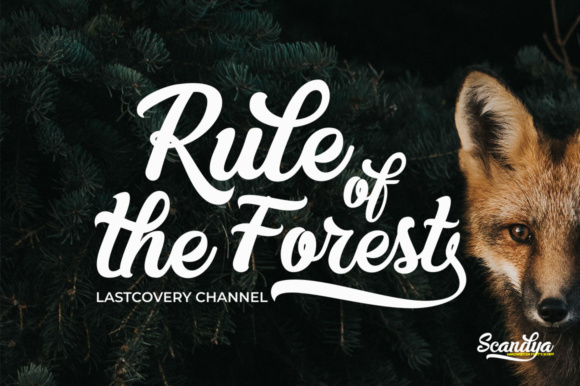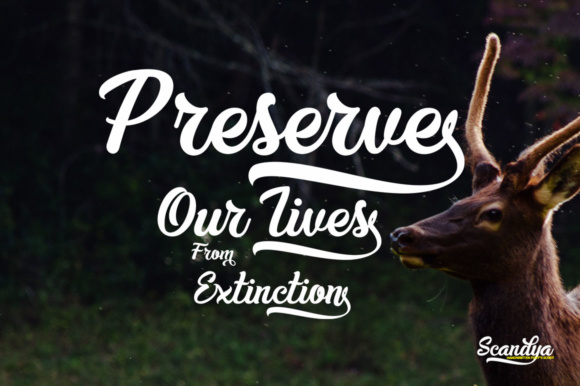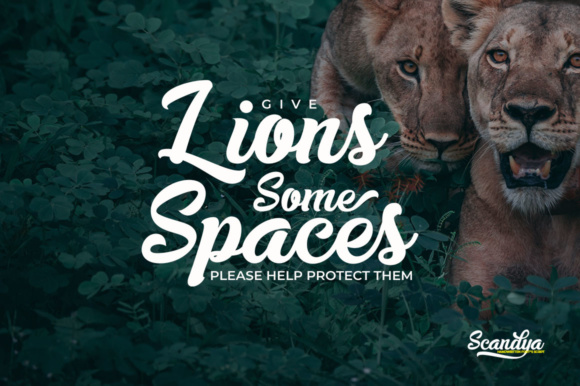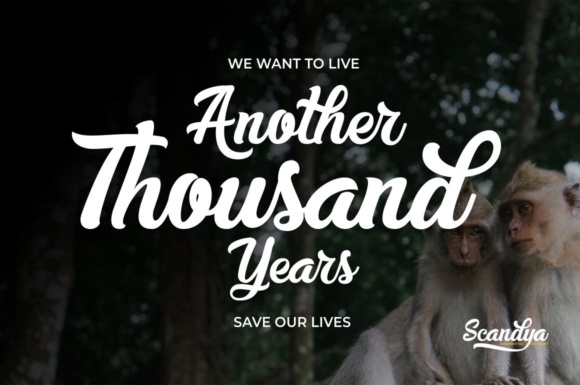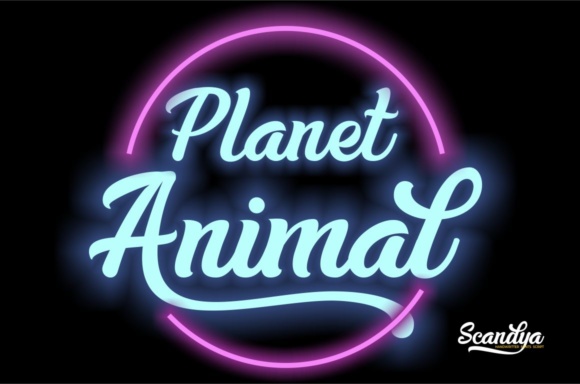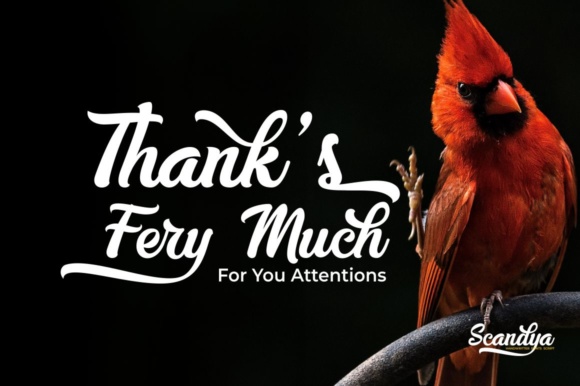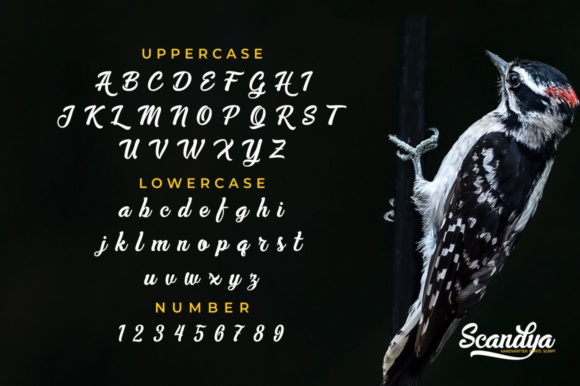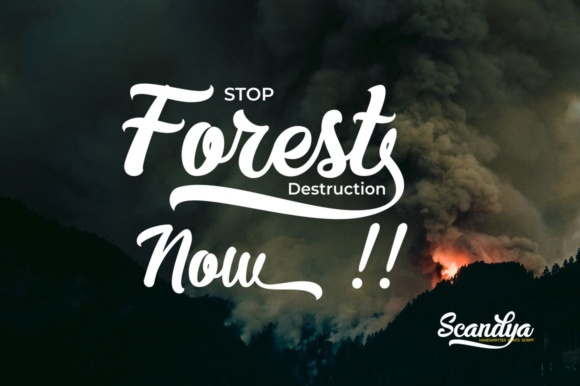
Scandya Script Font
About Scandya Script Font
Scandya is a brush script font based on the expression of real handwriting. It lets you transform type into an exciting and beautiful piece of work. It’s hand-lettered look adds a real human touch to things and comes along with a lot of loving details.
Scandya has lots of alternates that give you the possibility to build your text almost like handwriting with all the charming imperfections and variations that a real handwriting has. Scandya will work perfectly for fashion, e-commerce brands, trend blogs, wedding boutiques or any business that wants to appear upscale and chic.